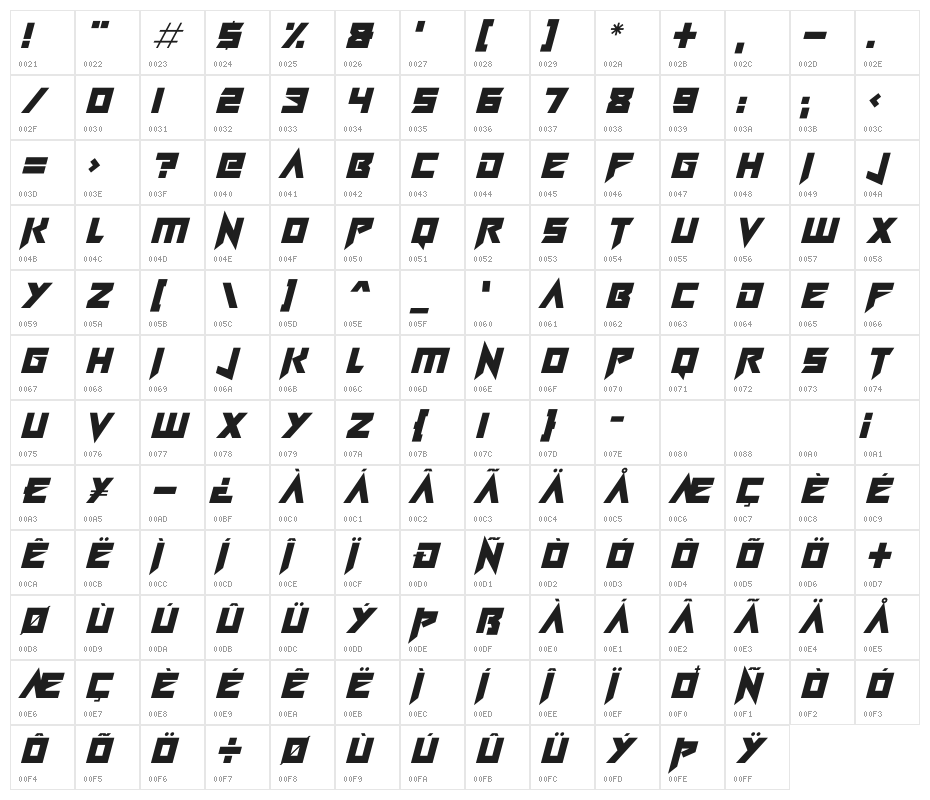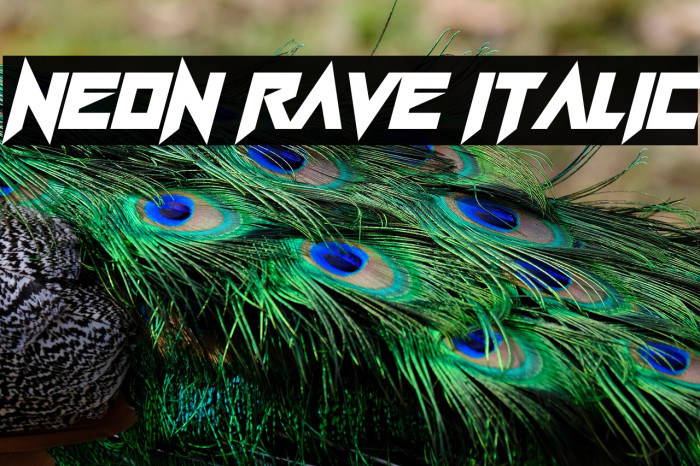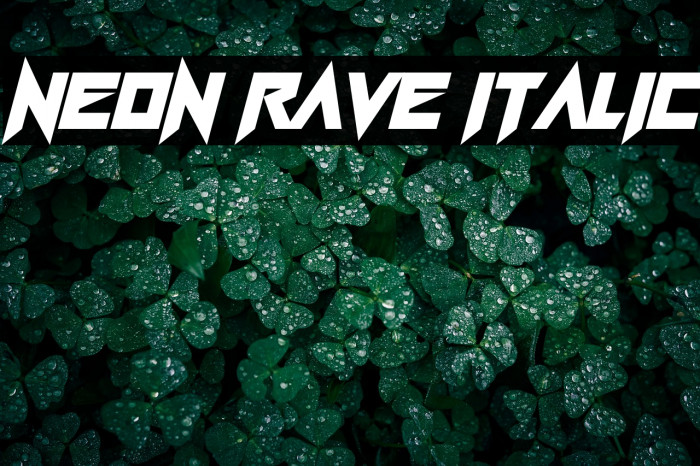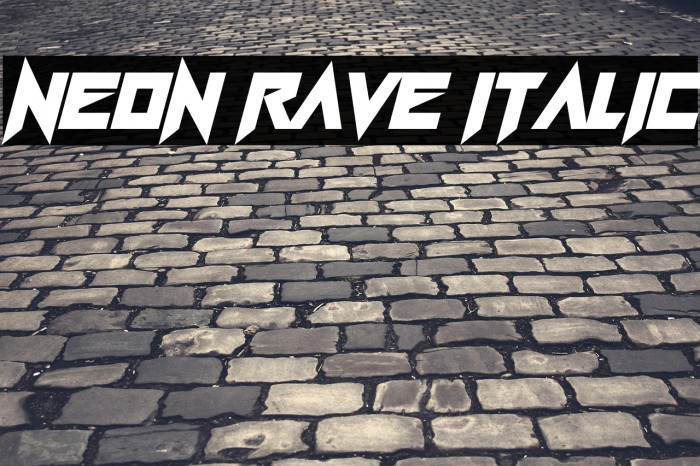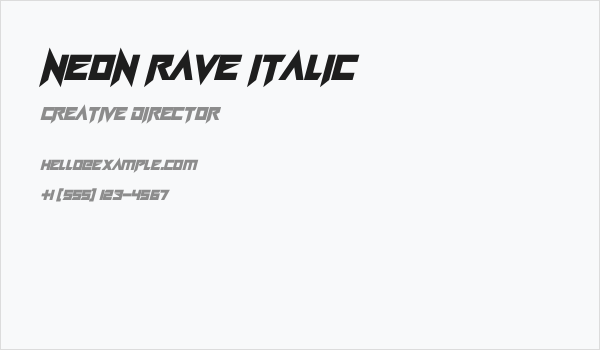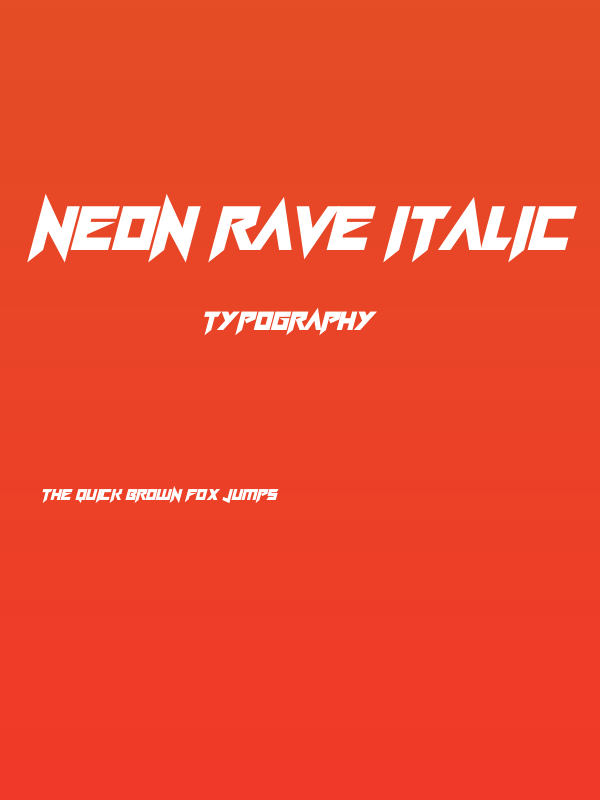
Neon Rave Italic Font
Neon Rave Italic Description
This font features a bold, angular design with a futuristic and edgy aesthetic. The characters are sharply cut with a dynamic slant, giving a sense of movement and energy. The uppercase and lowercase letters maintain a consistent style, with geometric shapes and pointed edges that create a cohesive look. The numbers and special characters follow the same design principles, ensuring uniformity across all glyphs. This font is ideal for projects that require a modern and striking appearance, such as digital art, gaming titles, or electronic music branding.
| Proposed Projects | Ideal for digital art, gaming titles, electronic music branding, and modern posters. |